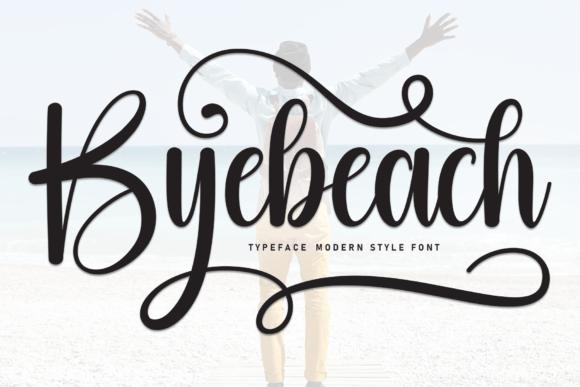
Introducing Byebeach Font: Elevate Your Designs with Elegance and Timeless Style
Are you on the hunt for a font that exudes elegance, sophistication, and a touch of timeless charm? Look no further than Byebeach Font, a stunning flowing handwritten font that is sure to capture your heart. With its incredibly distinct and classic style, Byebeach is the perfect addition to your design toolkit, allowing you to create spectacular designs that stand out from the crowd.
The Essence of Byebeach Font
Byebeach Font is described by its elegant touch, which sets it apart from other fonts in its category. Its flowing script and delicate strokes evoke a sense of refinement and luxury, making it an ideal choice for designers and crafters who want to add a touch of sophistication to their projects. Whether you’re working on a branding campaign, a wedding invitation, or a packaging design, Byebeach Font is sure to impress.
What Makes Byebeach Font Stand Out?
So, what makes Byebeach Font so special? Here are just a few features that set it apart:
- Elegant and Refined: Byebeach Font boasts an elegant and refined style that is perfect for designs that require a touch of sophistication.
- Flowing Handwritten Script: The font’s flowing handwritten script gives it a natural and organic feel that is sure to capture the attention of your audience.
- Timeless Style: Byebeach Font has a timeless quality that ensures it will remain relevant for years to come, making it a valuable addition to your design library.
- Versatile: Whether you’re working on a digital project or a print design, Byebeach Font is versatile enough to adapt to any medium.
Byebeach Font is perfect for a wide range of projects, including:
- Branding and Packaging: Use Byebeach Font to create stunning brand identities and packaging designs that stand out on store shelves.
- Wedding and Event Invitations: Add a touch of elegance to your wedding and event invitations with Byebeach Font.
- Digital Designs: Byebeach Font is perfect for digital designs, including social media graphics, blog headers, and more.
- Print Designs: Use Byebeach Font to create beautiful print designs, including brochures, flyers, and posters.
Tips for Using Byebeach Font
Here are a few tips for getting the most out of Byebeach Font:
- Pair it with a Sans Serif Font: Pair Byebeach Font with a sans serif font to create a beautiful contrast that adds visual interest to your design.
- Experiment with Colors: Byebeach Font looks stunning in a variety of colors, so don’t be afraid to experiment and find the perfect hue for your design.
- Use it as a Title Font: Byebeach Font is perfect for use as a title font, adding a touch of elegance and sophistication to your design.
In conclusion, Byebeach Font is a stunning flowing handwritten font that is sure to elevate your designs to new heights. With its elegant touch, timeless style, and versatility, it’s the perfect addition to your design toolkit. Whether you’re a designer, crafter, or DIY enthusiast, Byebeach Font is sure to inspire you to create spectacular designs that leave a lasting impression.